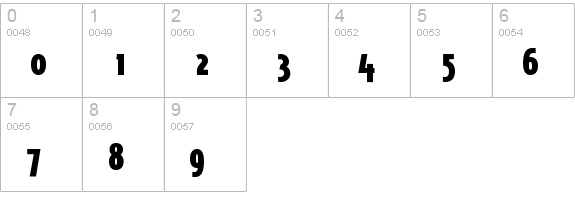
OPTIJake-AntiqueBlack Font Details
Introducing OPTIJake-AntiqueBlack, a striking and timeless font that exudes elegance and sophistication. With its vintage-inspired design and intricate details, this font is perfect for adding a touch of old-world charm to your projects. The sleek lines and classic curves of OPTIJake-AntiqueBlack make it a versatile choice for a wide range of design applications, from branding and packaging to invitations and signage. What sets OPTIJake-AntiqueBlack apart is not only its aesthetic appeal, but also its accessibility. This exquisite font is available for free download at FontsMarket.com, allowing you to easily incorporate its unique style into your creations without any cost. Whether you're a seasoned designer looking to add a new dimension to your work or a novice exploring the world of typography, OPTIJake-AntiqueBlack is a must-have addition to your font library. Download OPTIJake-AntiqueBlack today and elevate your designs with its timeless beauty and effortless charm. Let this exquisite font inspire your creativity and bring a touch of vintage sophistication to your projects.